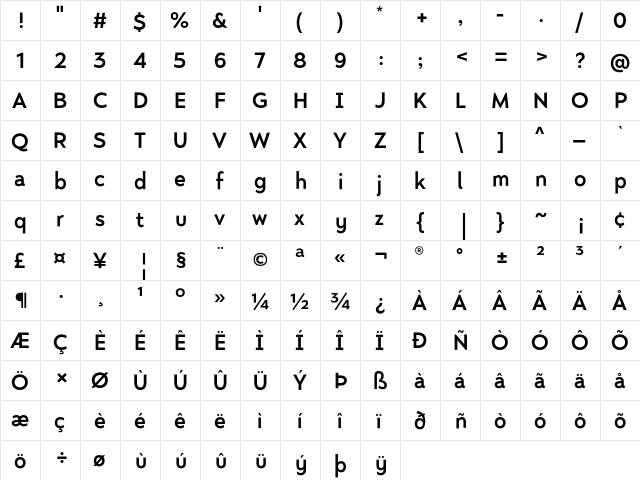
Nyata FTR Regular
Design Context for Nyata FTR Typeface
Nyata FTR is a composed and adaptable typeface that performs quietly and consistently across a wide range of design contexts.